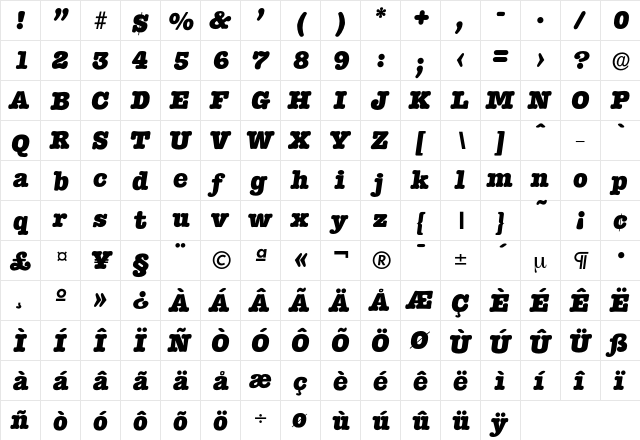
Typewriter-HeavyIta Regular
Design Context for Typewriter-HeavyIta Typeface
Typewriter-HeavyIta brings the precise, column-aligned rhythm of monospaced typography to designs that value technical clarity and systematic order.
Pro Tip: Pair Typewriter-HeavyIta with a proportional sans for UI contexts where code-style labels and regular body copy need to coexist.